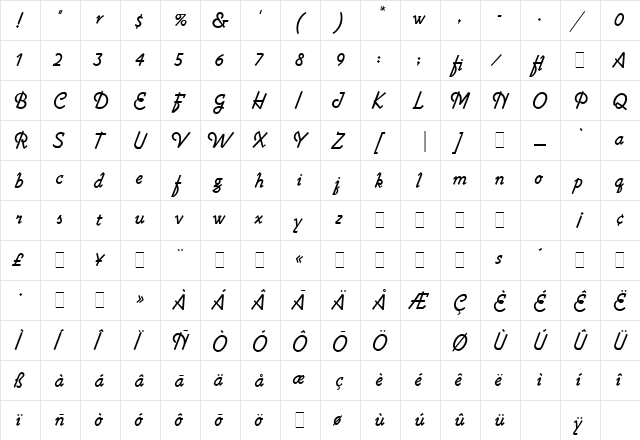
Lightnin LET Plain Font Preview
Lightnin LET Plain
Design Context for Lightnin LET Typeface
Lightnin LET takes a measured approach to typography — its balanced proportions and neutral character make it a reliable workhorse for both digital and print work. Its slender proportions lend an understated elegance to any composition.